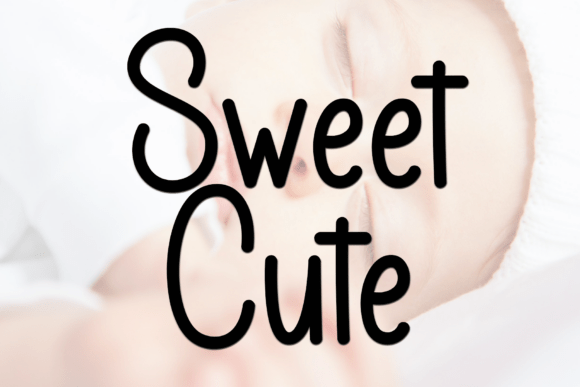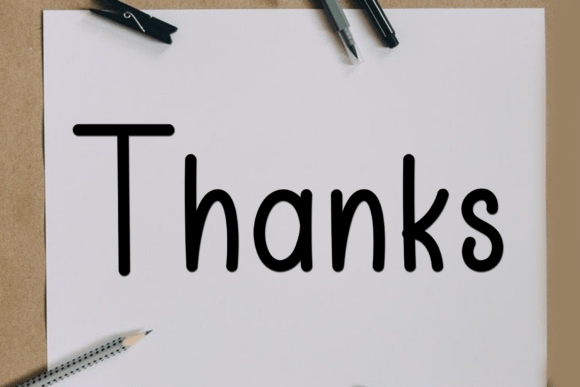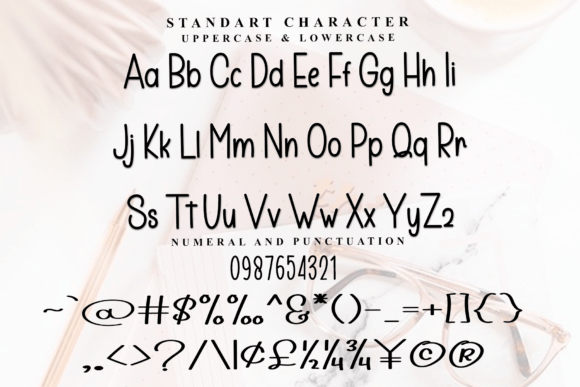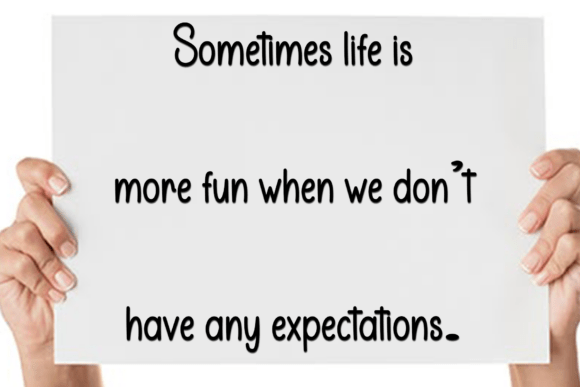
Island Stone Font
Transport your audience to a place of coastal serenity with Island Stone, a modern sans serif font that balances clean geometry with an organic, hand-finished soul. This typeface features tall, slender letterforms characterized by soft, rounded terminals that mimic the smooth, weathered edges of sea stones. With its airy silhouette and approachable structure, Island Stone is the premier choice for luxury travel branding, coastal resort identities, high-end skincare packaging, and serene lifestyle editorial headers. It’s a font designed to feel as effortless as a summer breeze.